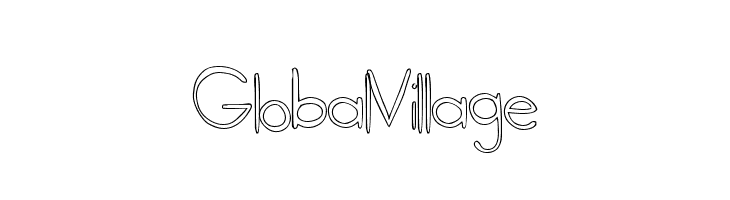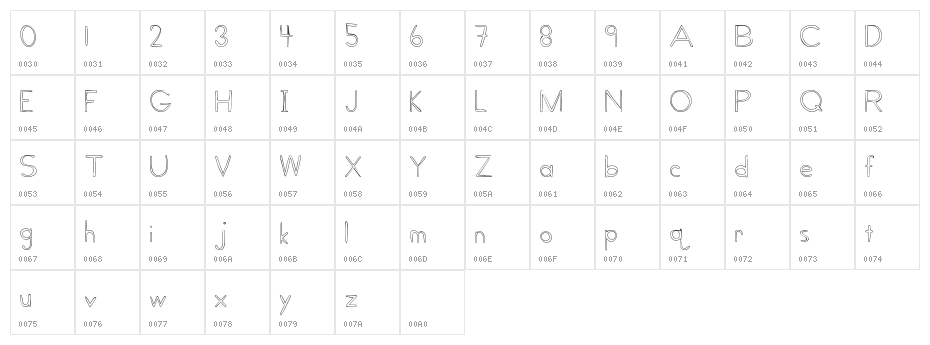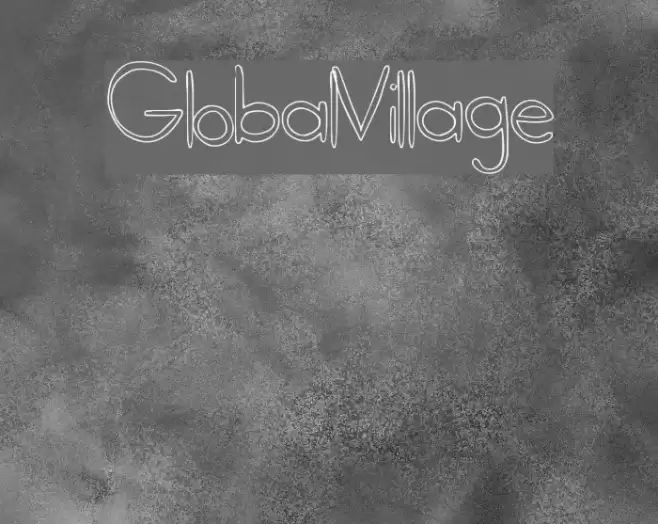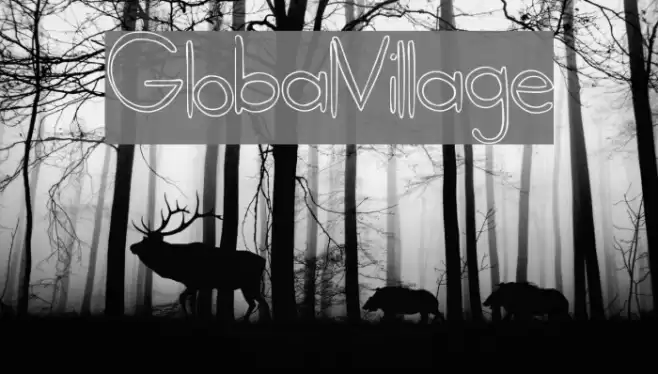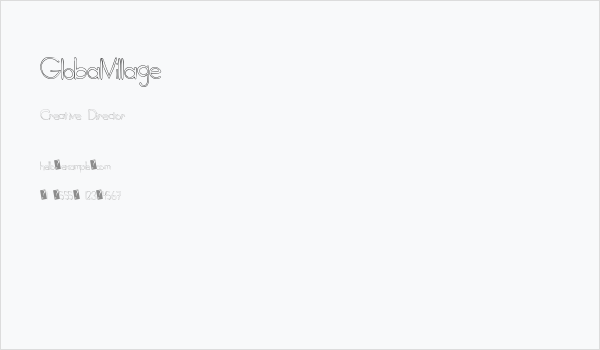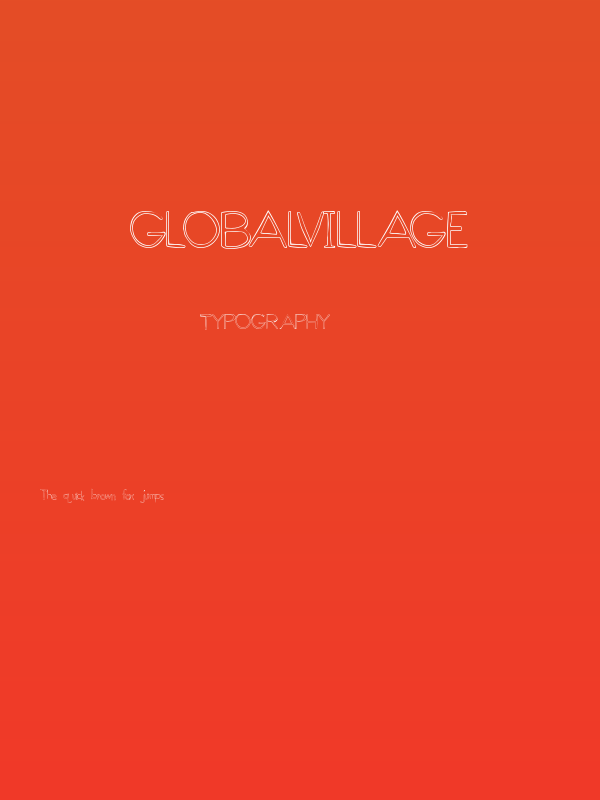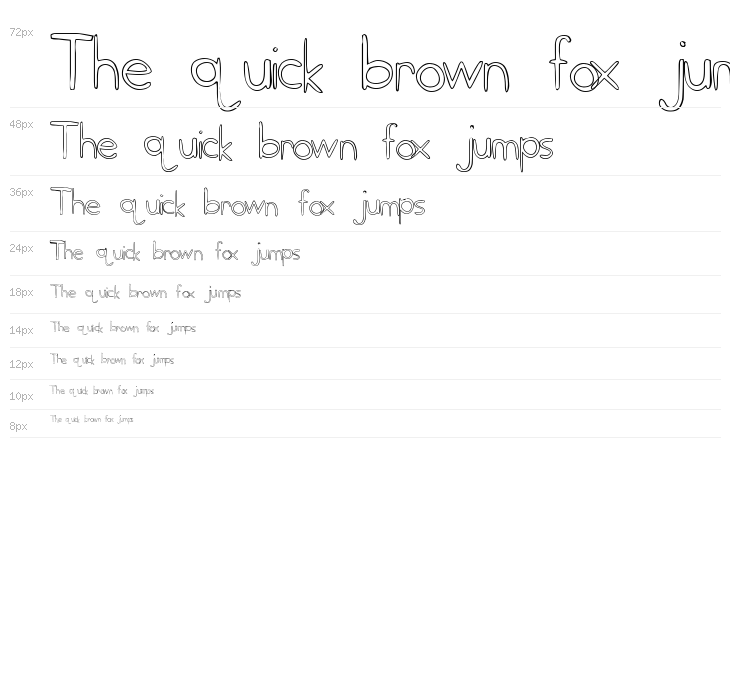
GlobalVillage Font
GlobalVillage Description
This font features a playful and whimsical design, characterized by its hollow, outlined letters. The uppercase and lowercase characters maintain a consistent style, with rounded edges and a slightly irregular, hand-drawn appearance. The numbers follow the same aesthetic, providing a cohesive look across all characters. The font's unique style makes it stand out, offering a creative and informal vibe that is both approachable and visually engaging. Its distinctiveness is further emphasized by the absence of traditional serifs, giving it a modern and casual feel. The overall design is suitable for projects that aim to convey creativity and fun.
| Overall Style | Whimsical, Playful, Modern |
| Proposed Projects | Ideal for children's books, creative posters, playful branding, and informal invitations. |